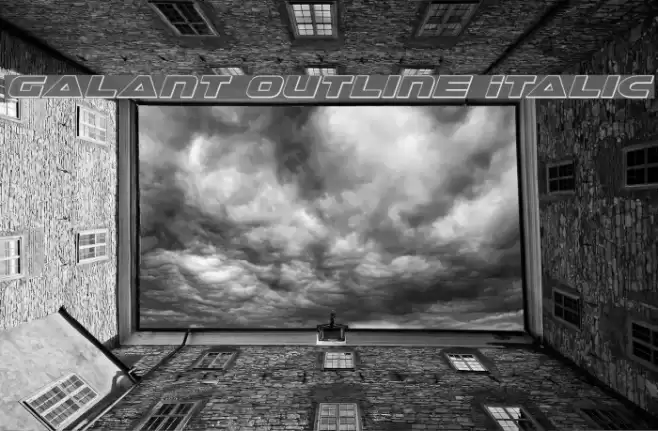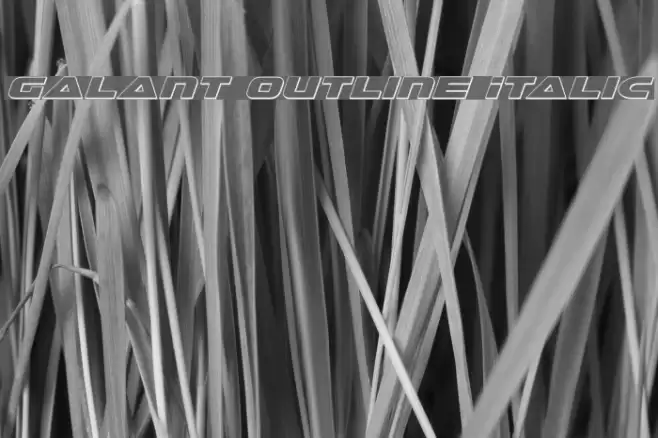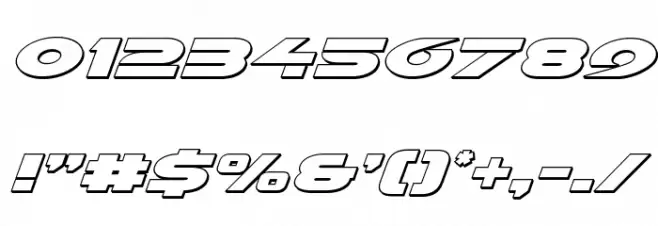
Galant Outline Italic Font
Galant Outline Italic Description
This font features a sleek, modern outline style with a distinct italic slant, giving it a dynamic and futuristic appearance. The characters are bold and geometric, with sharp angles and clean lines that create a sense of movement and energy. The uppercase and lowercase letters maintain a consistent style, enhancing readability while adding a unique flair. The numerals and special characters are designed with the same attention to detail, ensuring a cohesive look across all elements. This font's outline design allows for creative layering and color use, making it versatile for various design applications.
A modern, italic outline font with bold, geometric characters from Uncategorized fonts.
- Proposed Projects: Ideal for futuristic branding, tech-oriented designs, sports team logos, and dynamic posters.